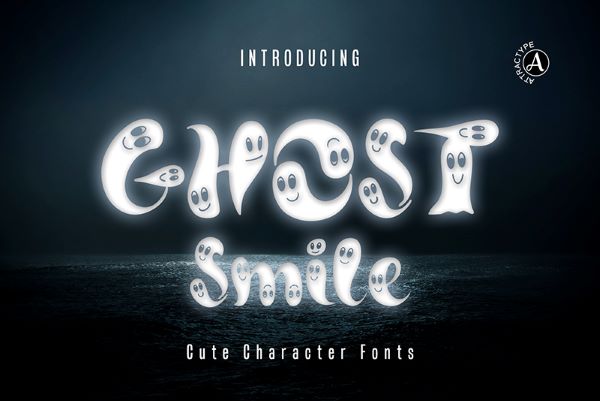
Ghost Smile Font
Ghost Smile by Attractype is a free Halloween display typeface that captures the eerie warmth of a ghost that grins — a genuinely freaky font whose unsettling smile-shaped letterforms balance the haunting with the strangely charming. Perfect for Halloween party designs, spooky-cute branding, seasonal social media graphics, and any project that wants its typography to feel like it arrived from somewhere just beyond the veil with a sense of humour. A demo version is available free for personal use; the full version is available via Creative Market.